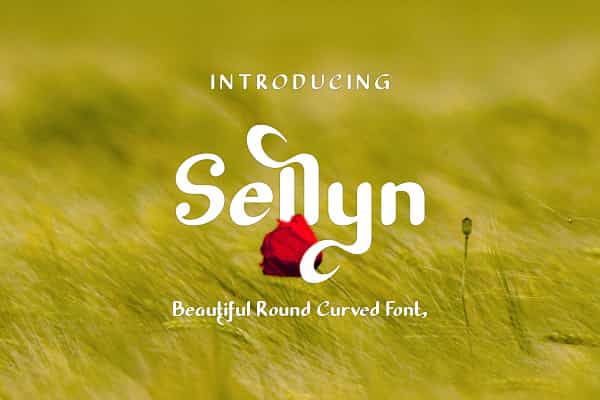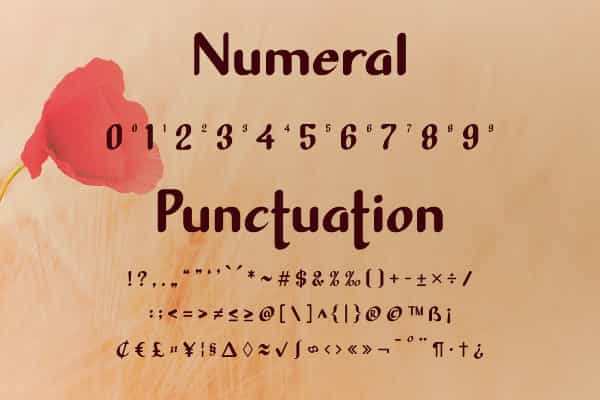
Sellyn is a slightly rounded sans serif font that has beautiful curved lines which were inspired by the gentle movement of wind. Sellyn is the best choice for a cafe logo, Boutique logo, brand fashion, book titles, movie titles flyers posters wedding invitations and all types of designs that need fonts with beautiful curves.